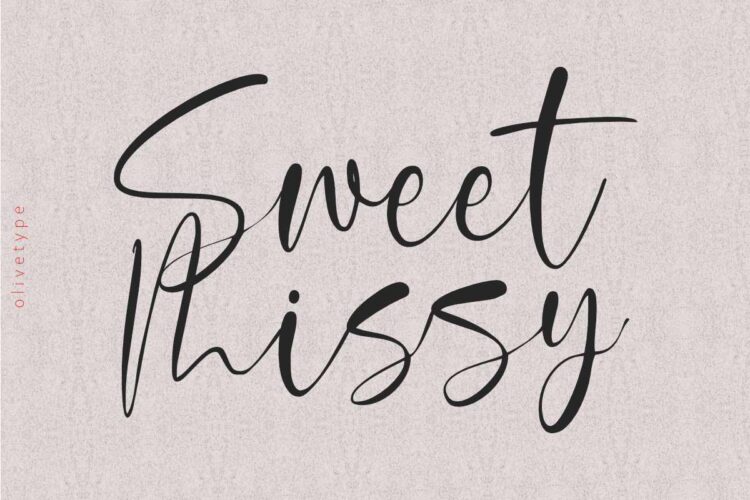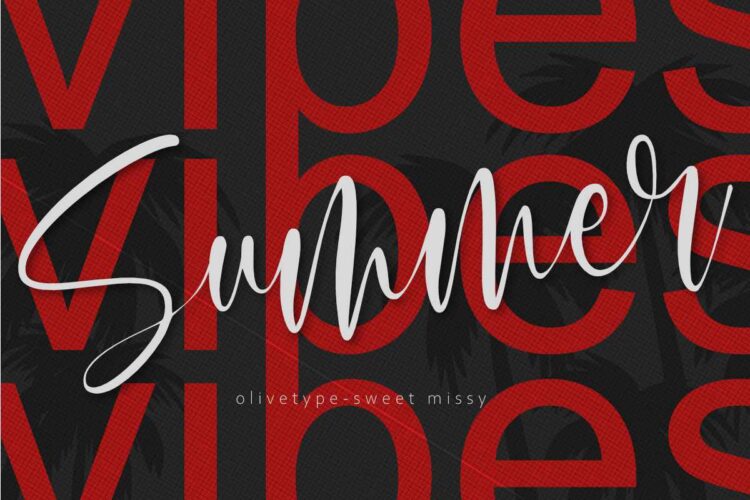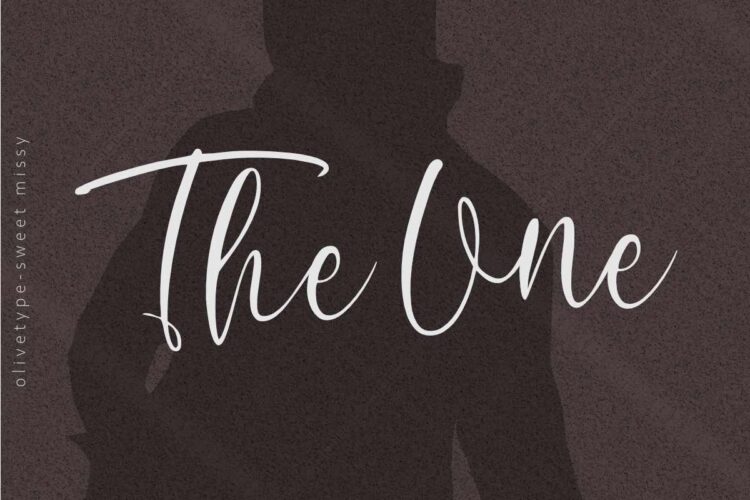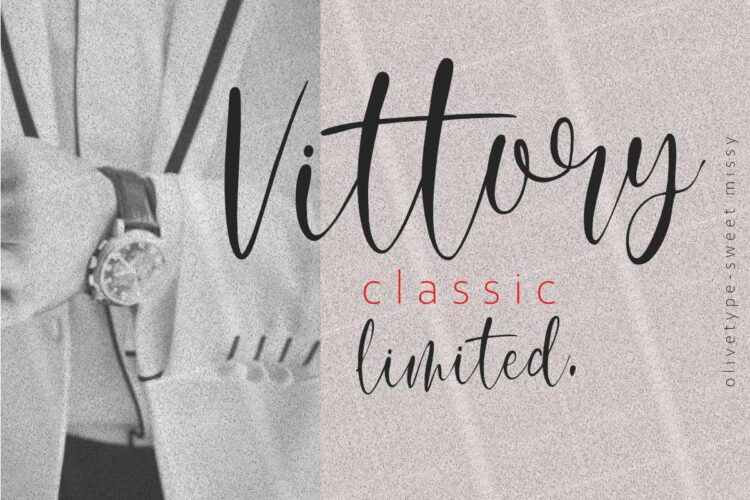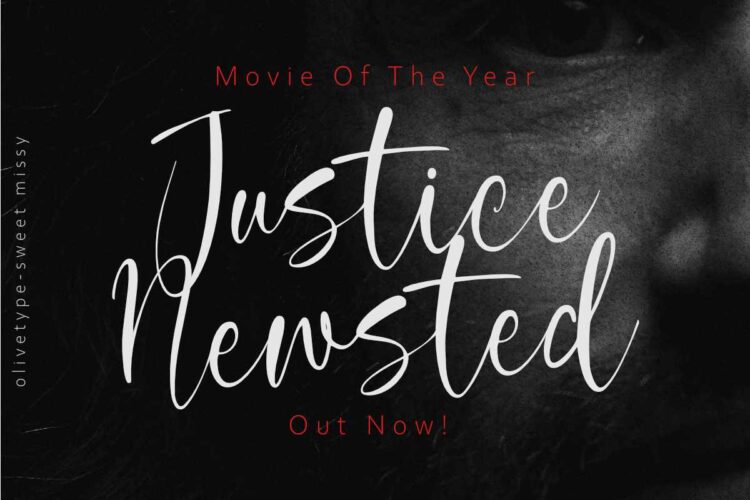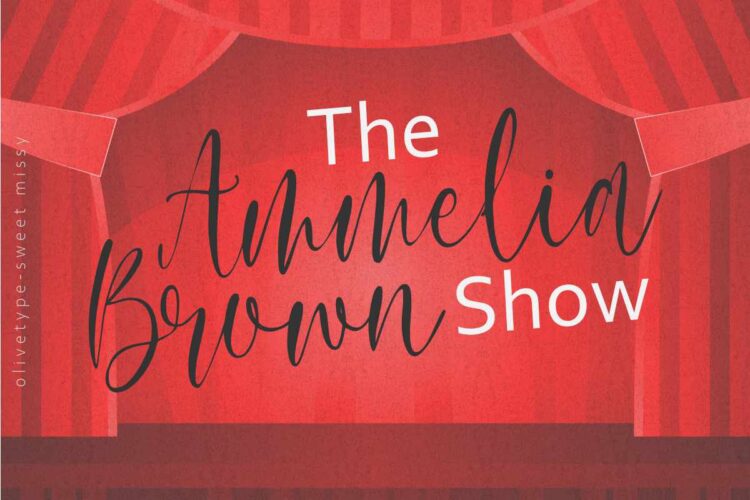
With its modern calligraphy script style, Sweet Missy is perfect for adding a touch of elegance to logos, branding, and more. Its stylish yet simple design makes it versatile and easy to use for a variety of projects.
- Ligatures.